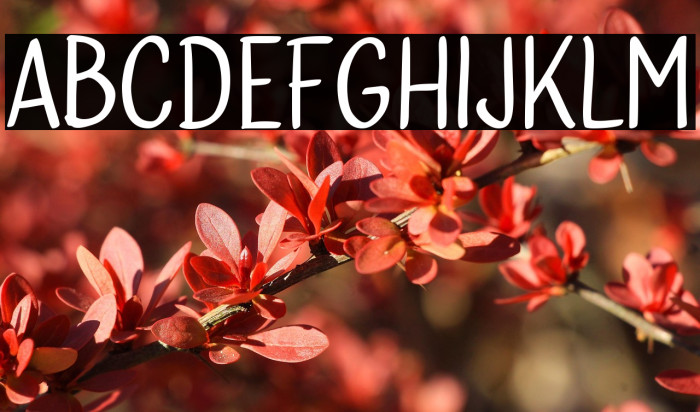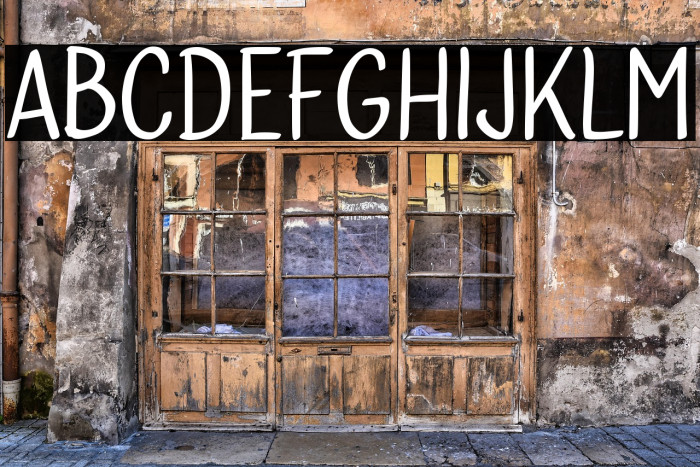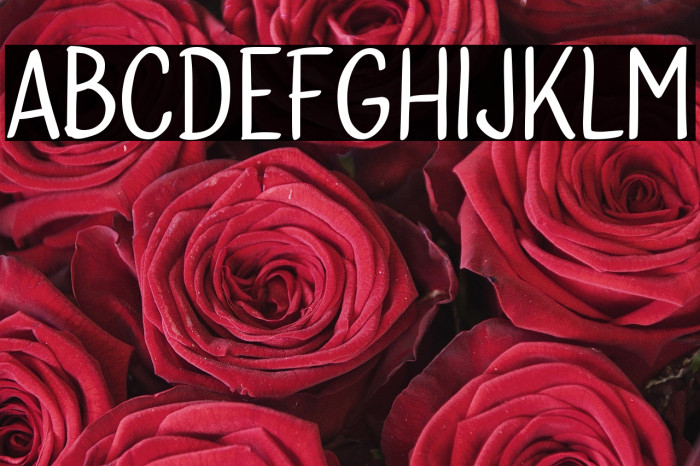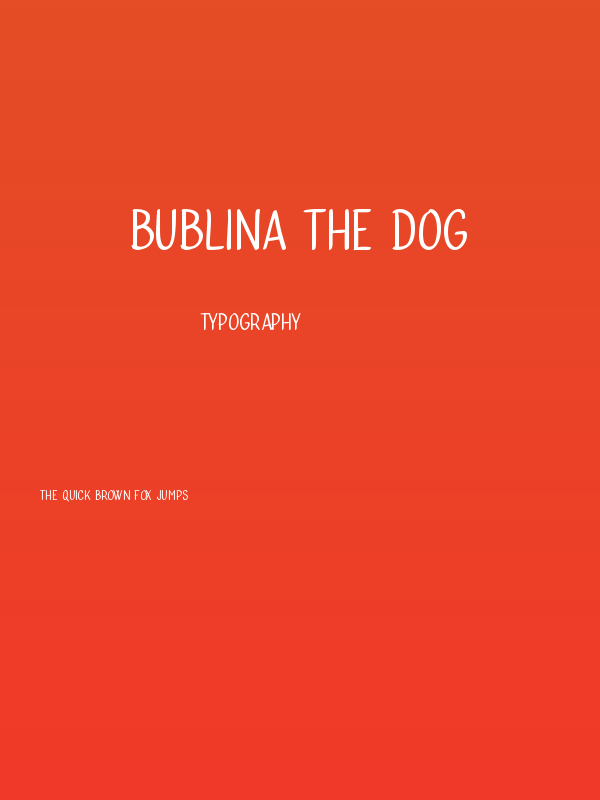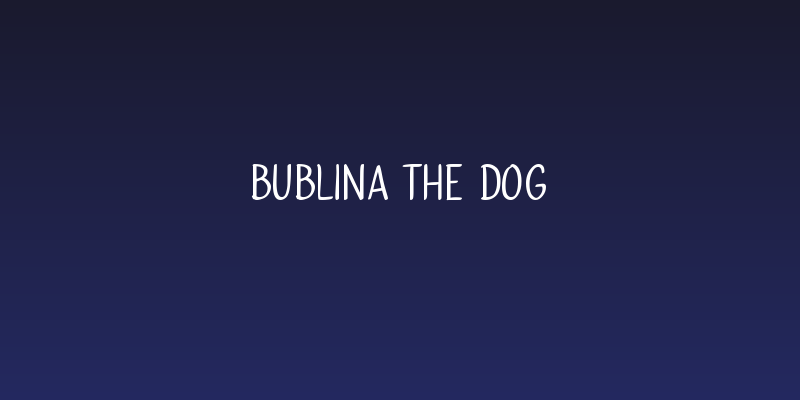
Bublina the Dog Font
Bublina the Dog Description
This playful and whimsical font features a handwritten style with a casual and friendly appearance. The letters are slightly irregular, adding a touch of personality and charm. The strokes are consistent in width, giving it a uniform look despite its informal style. The characters are well-spaced, ensuring readability while maintaining a lively and energetic feel. This font includes both uppercase and lowercase letters, numerals, and a variety of special characters, making it versatile for different uses.
| Proposed Projects | Ideal for children's books, greeting cards, playful branding, and informal invitations. |